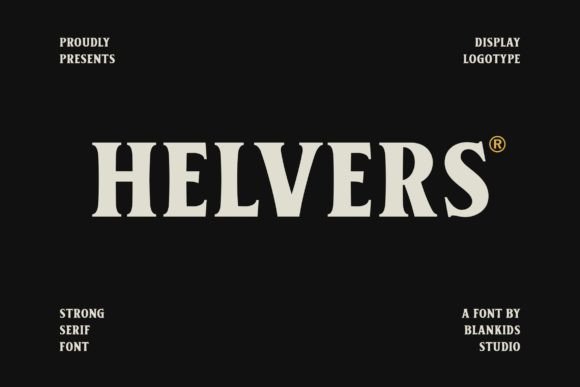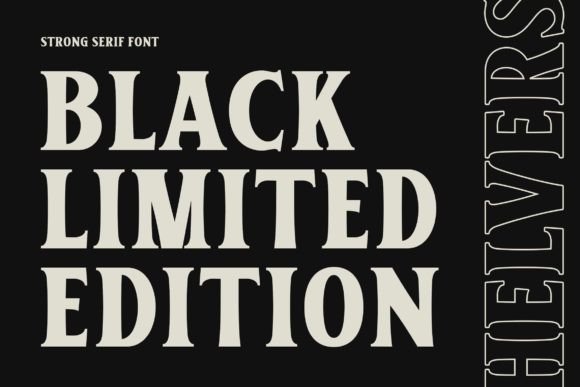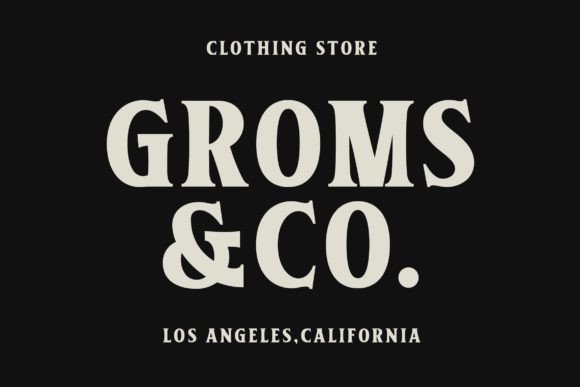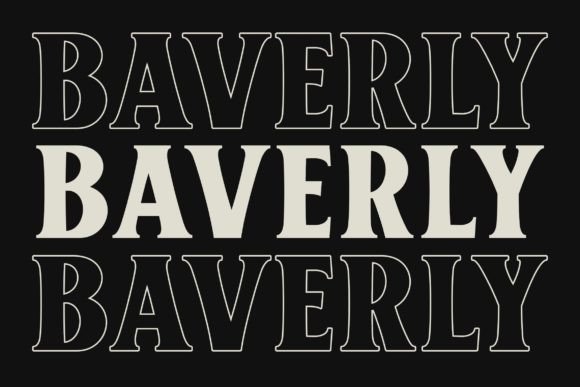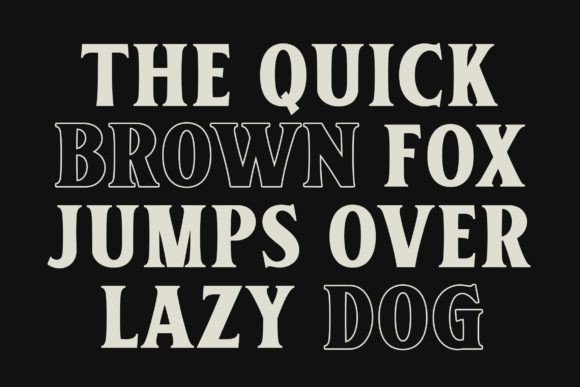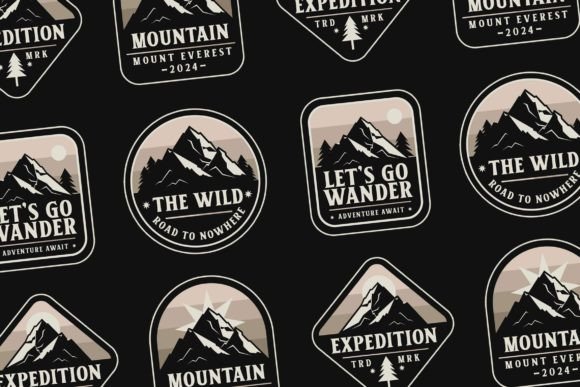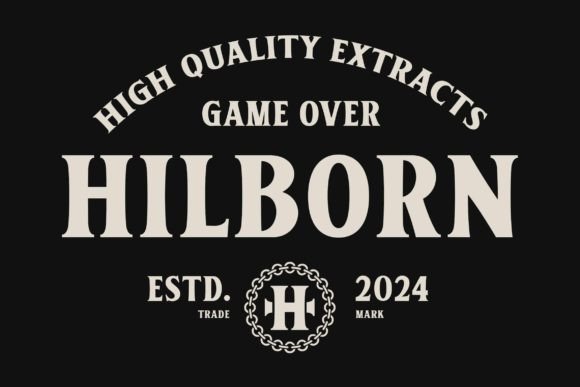
Helvers Font
Helvers is a modern and sleek-looking serif font. Its clean and organized appearance will definitely help you create unique designs that will make an impact on your audience.